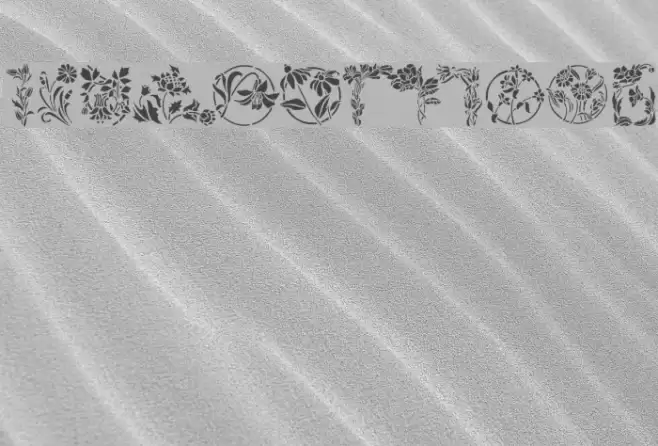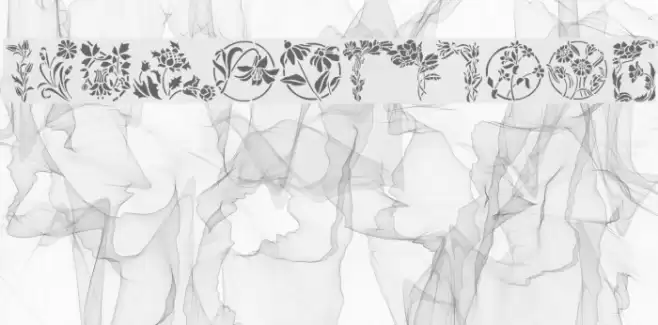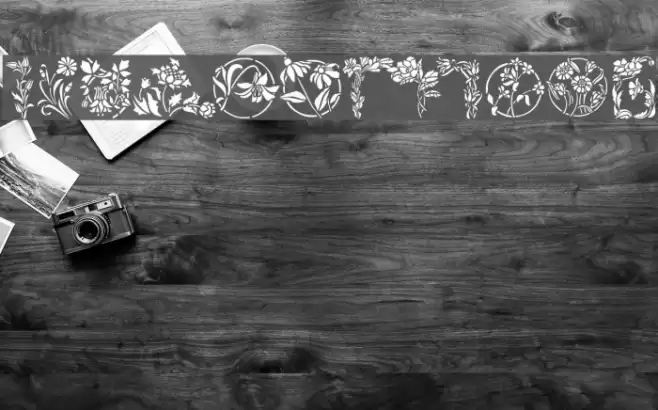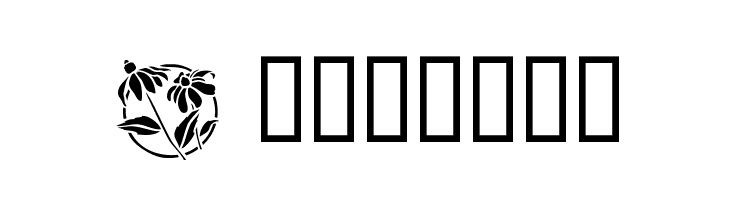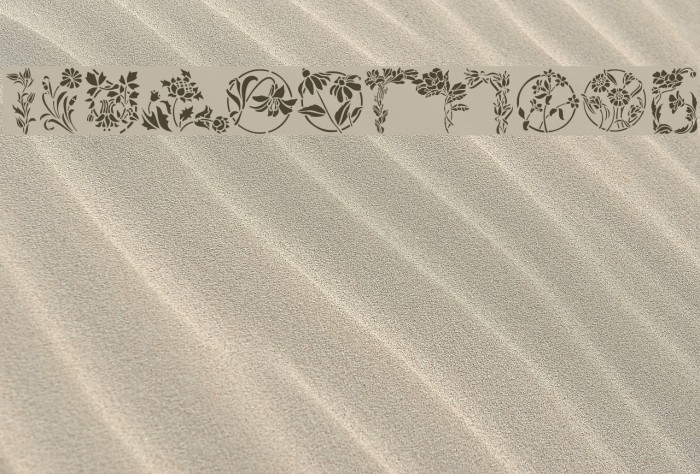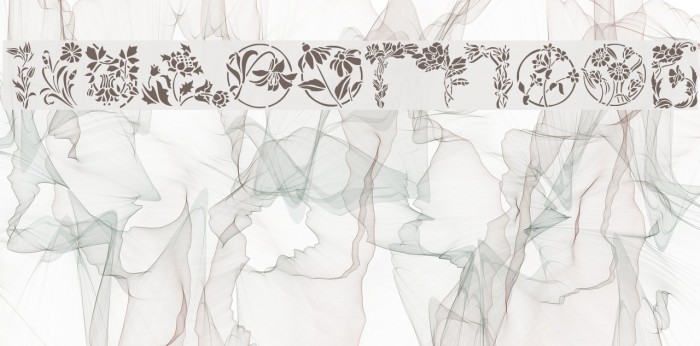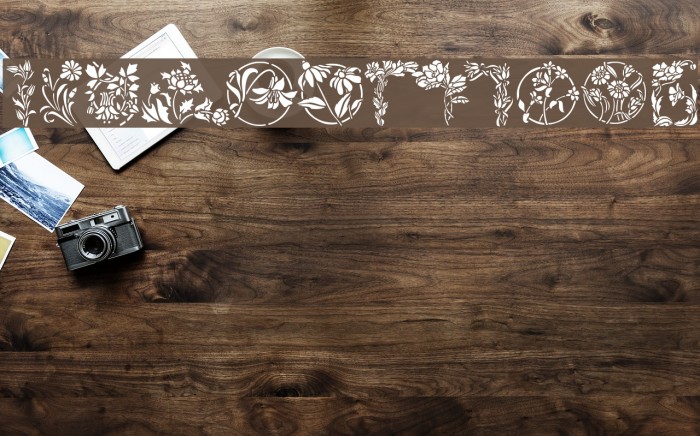
Flowers3 Font
Flowers3 Description
This decorative font features intricate floral designs integrated into each letter, creating a unique and artistic appearance. The letters are adorned with various flower motifs, giving them a natural and organic feel. This font is highly stylized, with each character showcasing a different floral arrangement, making it ideal for creative and artistic projects. Its detailed and ornate style captures attention and adds a touch of elegance and nature-inspired beauty to any design. The font is best suited for decorative purposes where a floral theme is desired.
A decorative font with intricate floral designs embedded in each letter from Uncategorized fonts.
- Proposed Projects: Ideal for wedding invitations, greeting cards, botanical-themed posters, and decorative headings.
- Use Case: Headlines, Logos, Decorative text